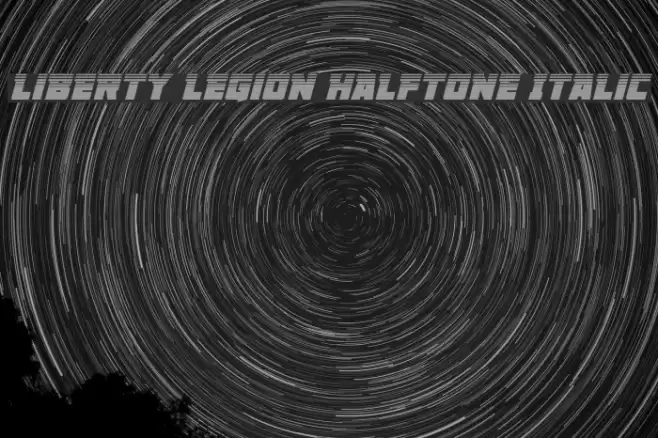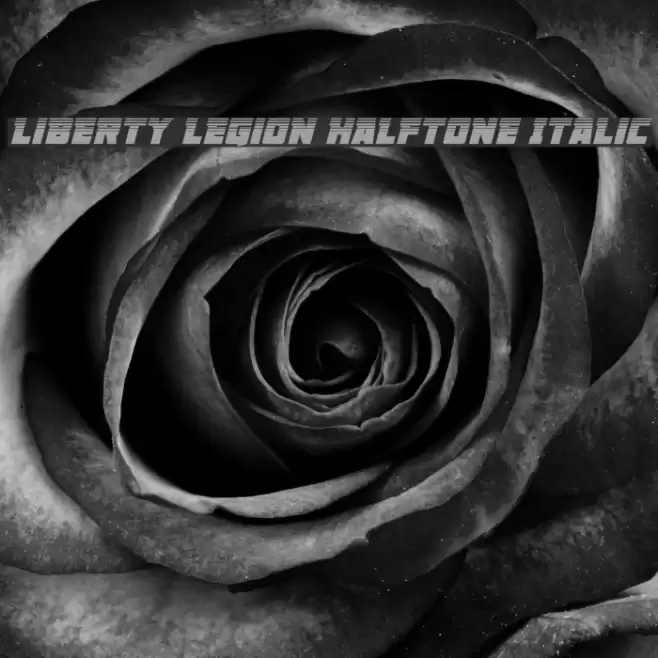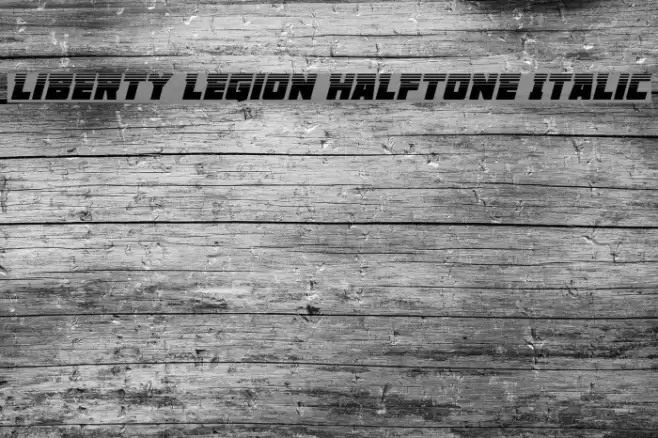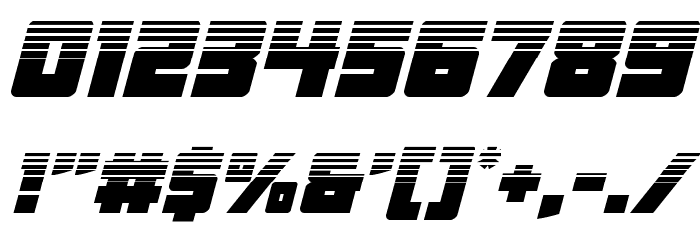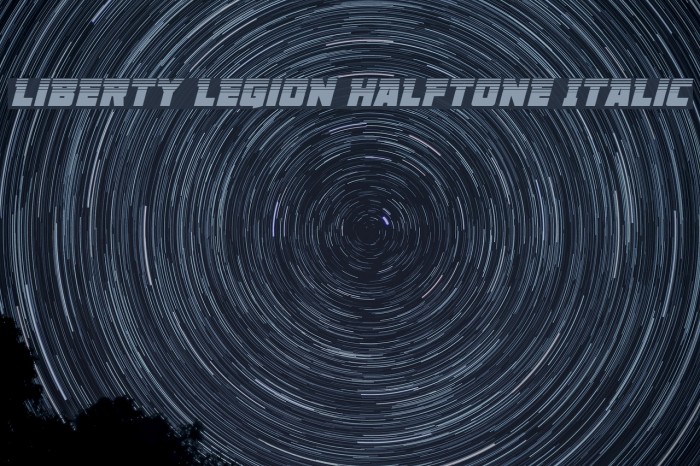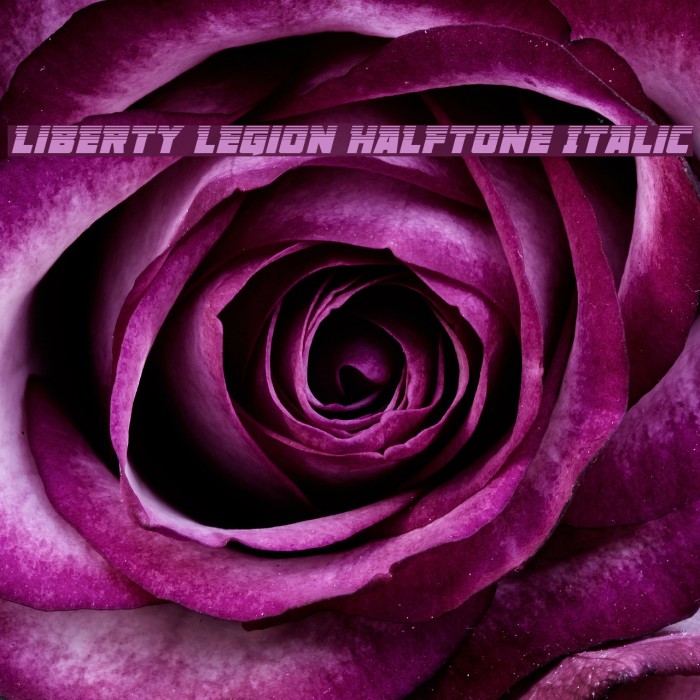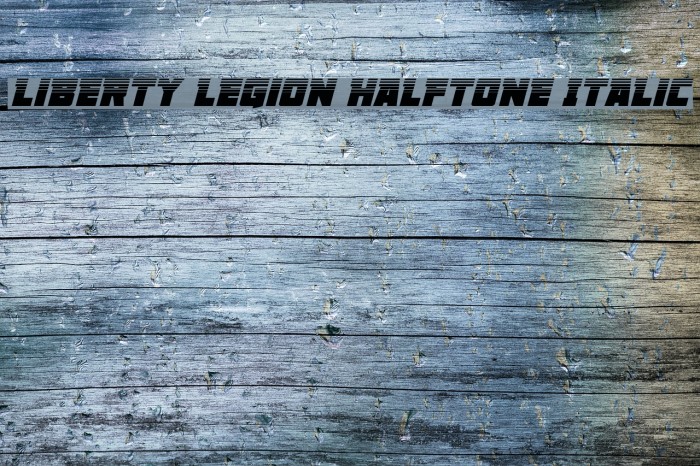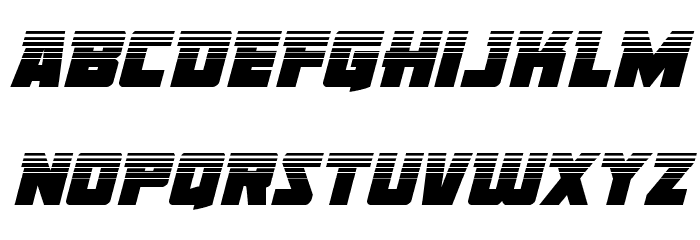
Liberty Legion Halftone Italic Font
Liberty Legion Halftone Italic Description
This font features a bold and dynamic design with a halftone effect that gives it a unique, futuristic appearance. The characters are italicized, adding a sense of motion and energy. The uppercase letters are prominent and striking, while the lowercase letters maintain the same bold style. The numbers and special characters are consistent with the overall design, ensuring a cohesive look. The halftone lines create a layered effect, enhancing the visual interest and making it suitable for eye-catching designs.
A bold, italicized font with a halftone effect, perfect for dynamic and futuristic designs from Uncategorized fonts.
- Proposed Projects: Ideal for use in posters, video game graphics, sci-fi themed projects, and branding that requires a modern and energetic look.
- Overall Style: Futuristic, Dynamic